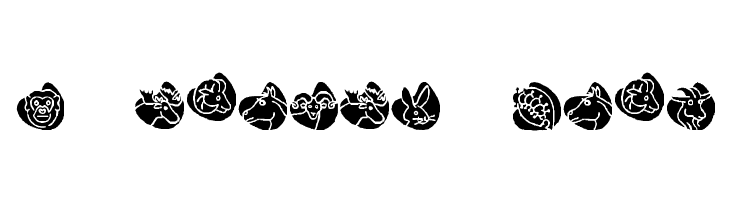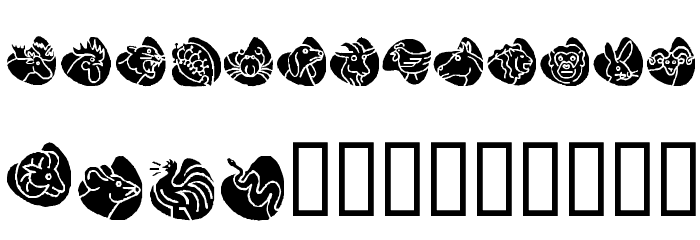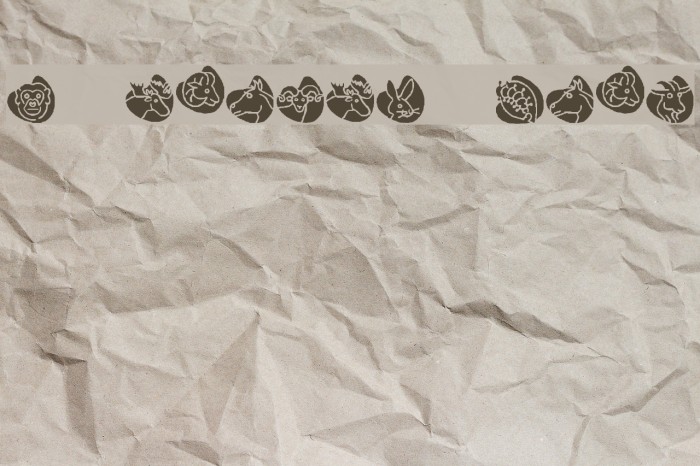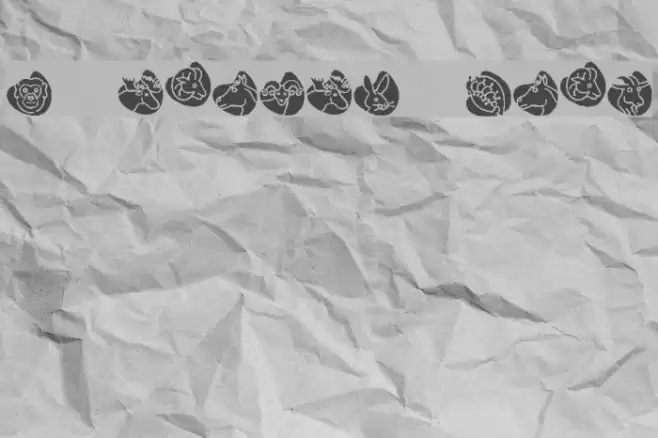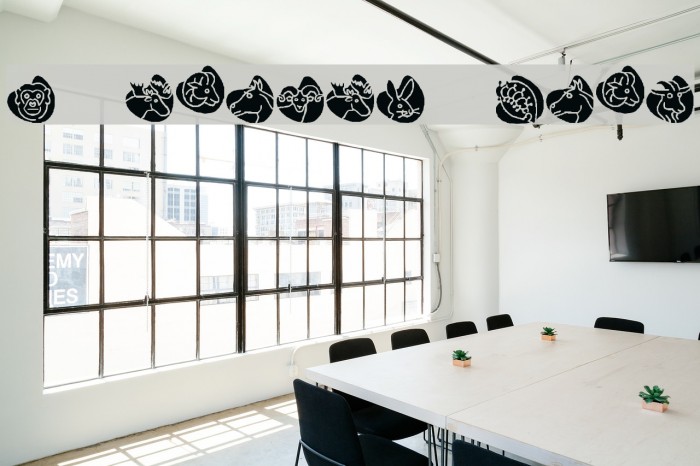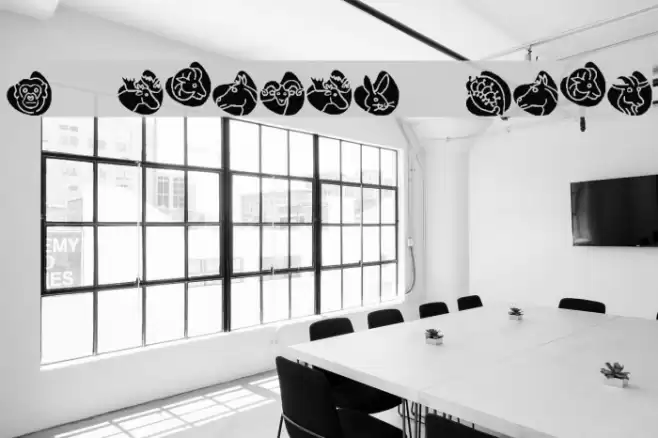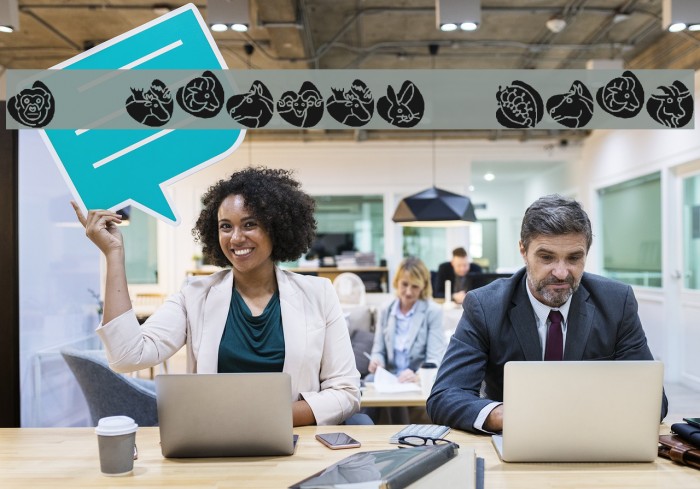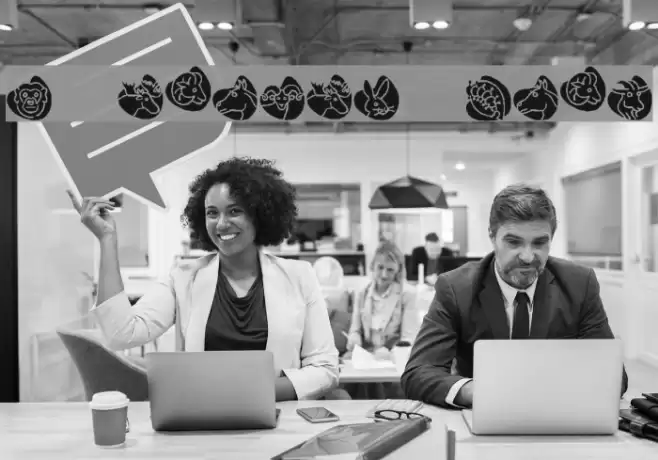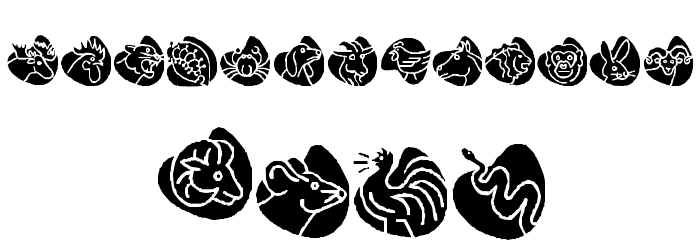
KR Animal Dings Font
KR Animal Dings Description
This is a decorative dingbat font featuring a variety of animal silhouettes. Each character is represented by a unique animal design, ranging from mammals to birds and reptiles. The designs are enclosed within circular shapes, creating a cohesive and playful look. The style is bold and cartoonish, with thick lines and high contrast, making the animals easily recognizable. This font is ideal for adding a whimsical touch to projects that require a fun and engaging visual element.
| Use Case | Logos, Decorative elements, Educational materials |
| Proposed Projects | Ideal for children's books, educational materials, animal-themed party invitations, and playful graphic design projects. |